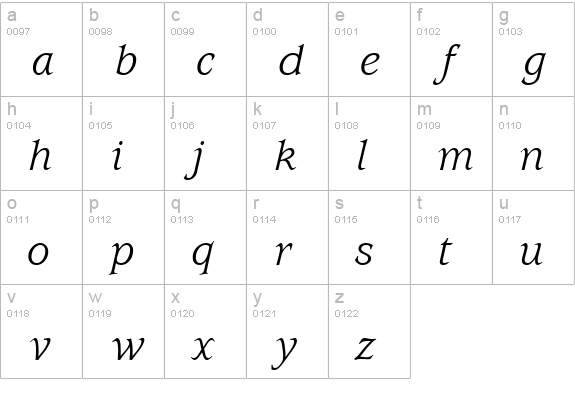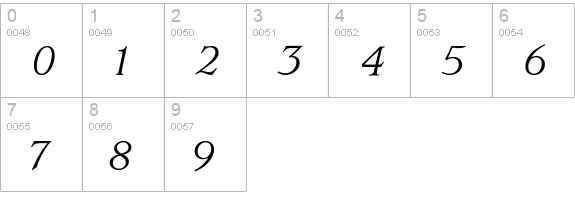
Usherwood Italic Font Details
Usherwood Italic is a distinctive, italic variant in the Usherwood typeface family \xE2\x80\x94 well suited to design and typography projects.
Usherwood Italic font is a striking and elegant typeface that exudes timeless sophistication. Its refined and delicate strokes give it a sense of grace and poise, making it perfect for adding a touch of elegance to any design project. The Usherwood Italic font features a unique blend of flowing curves and sharp angles, creating a captivating visual rhythm that draws the eye in. Its italicized form adds a touch of dynamic movement, making it ideal for conveying a sense of energy and excitement. Whether used for headlines, body text, or even logos, Usherwood Italic font commands attention and adds a touch of class to any design. Its versatility allows it to be used in a variety of contexts, from formal invitations to high-end branding. What makes Usherwood Italic font even more appealing is that it is free to download at FontsMarket.com. This means that designers and enthusiasts alike can access and enjoy the beauty of this exquisite typeface without any cost. Its availability for free makes it a valuable asset for both personal and commercial projects. With Usherwood Italic font, you can elevate your designs to new heights, effortlessly capturing attention and leaving a lasting impression. Its free availability allows you to explore its potential without any limitations, ensuring that your creativity knows no boundaries. Download Usherwood Italic font today from FontsMarket.com and experience the beauty and versatility of this remarkable typeface. Let it enhance your designs and inspire your creativity, as you effortlessly create stunning visuals that leave a lasting impact.